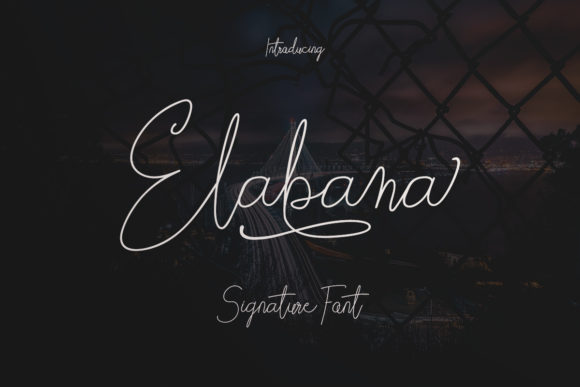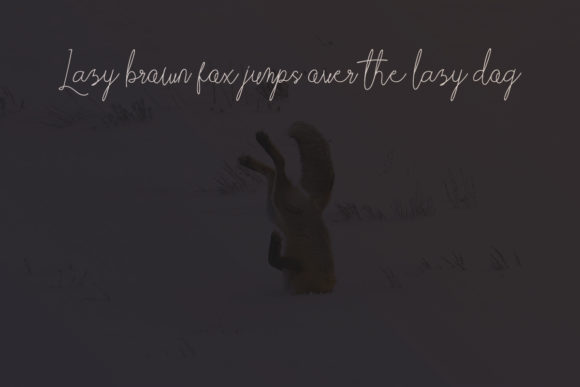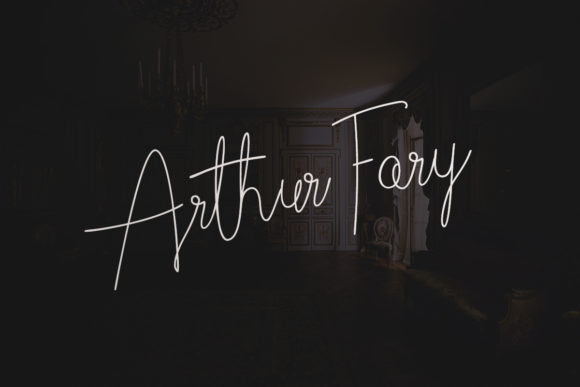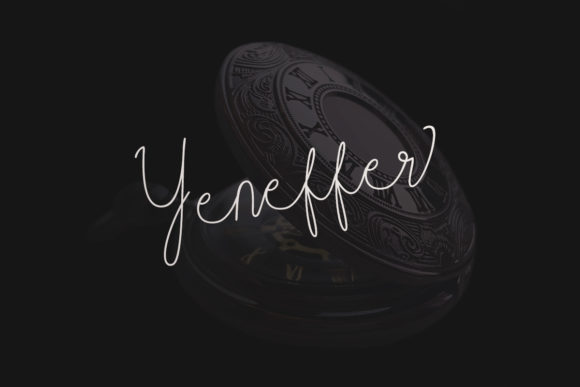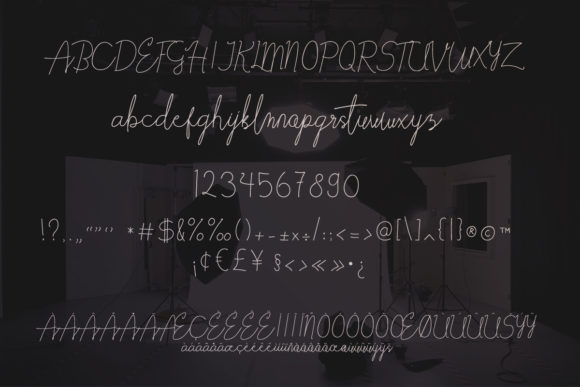
Elabama Font
About Elabama Font
The Elabama is an elegant signature font. It has a feminine feel and is perfect for signatures, branding, books, magazines, posters, and much more!